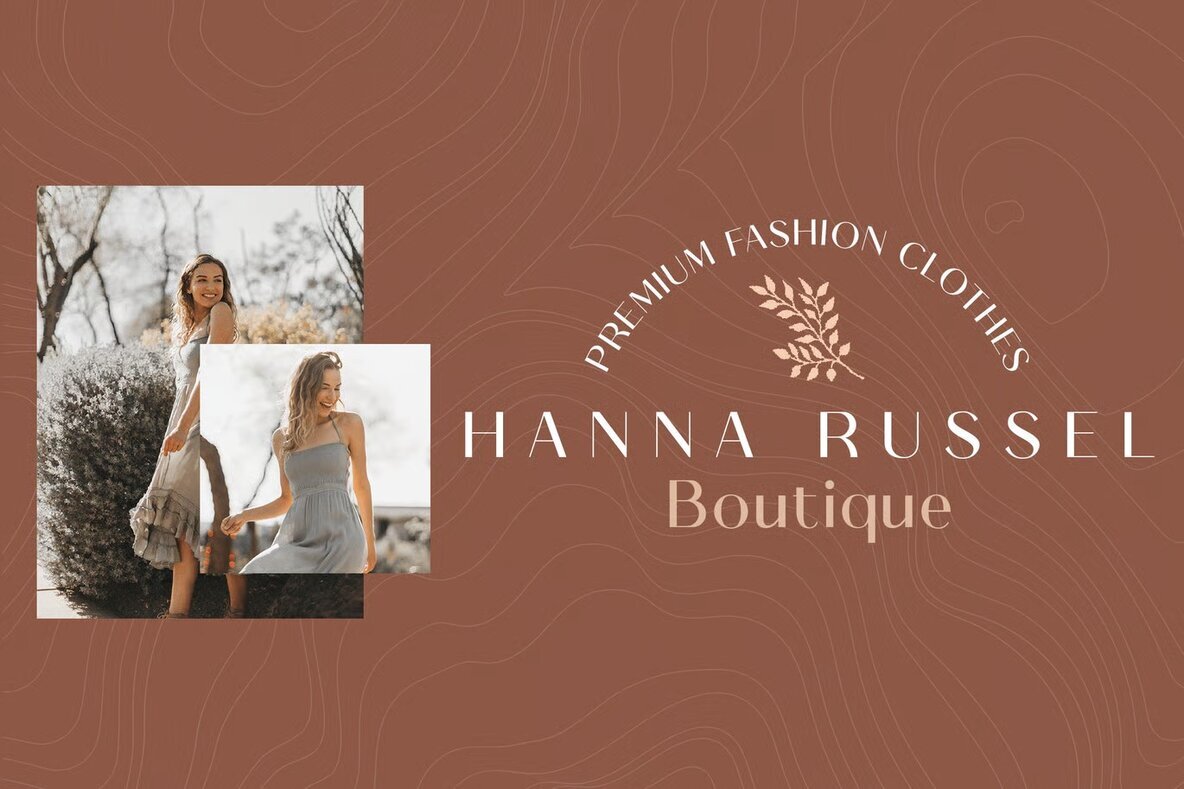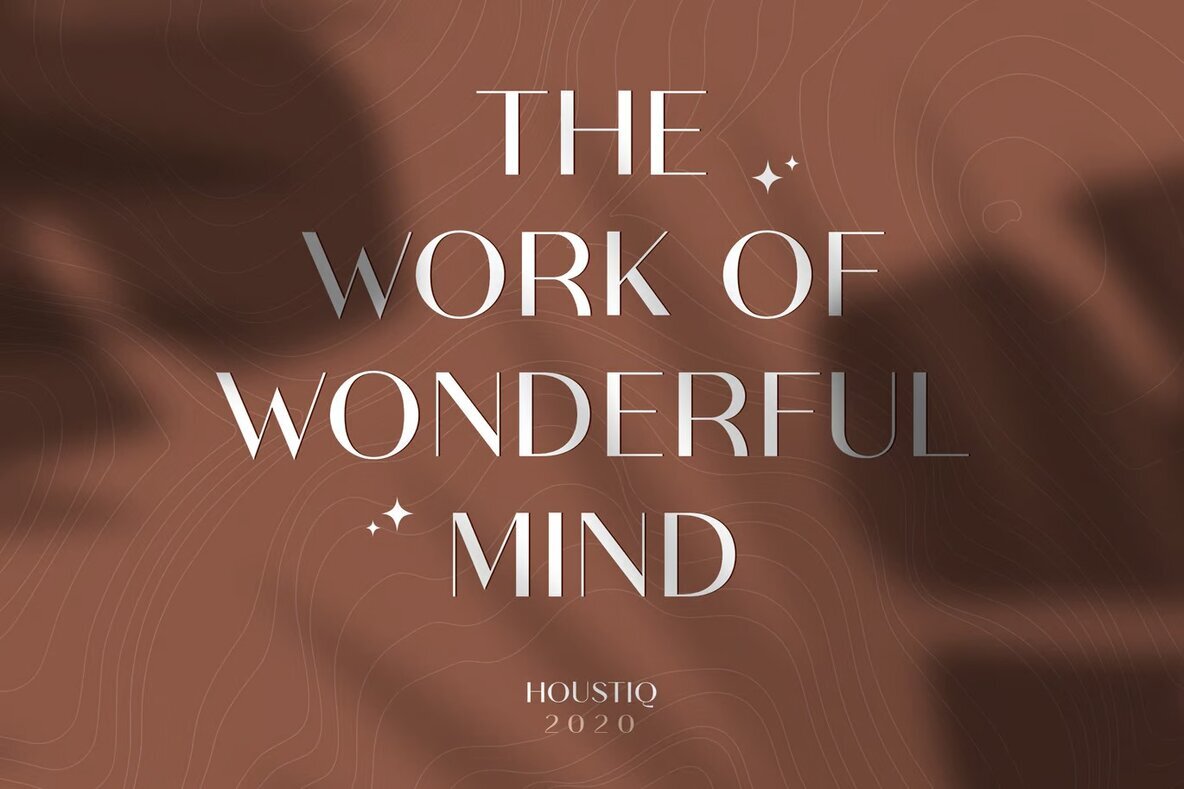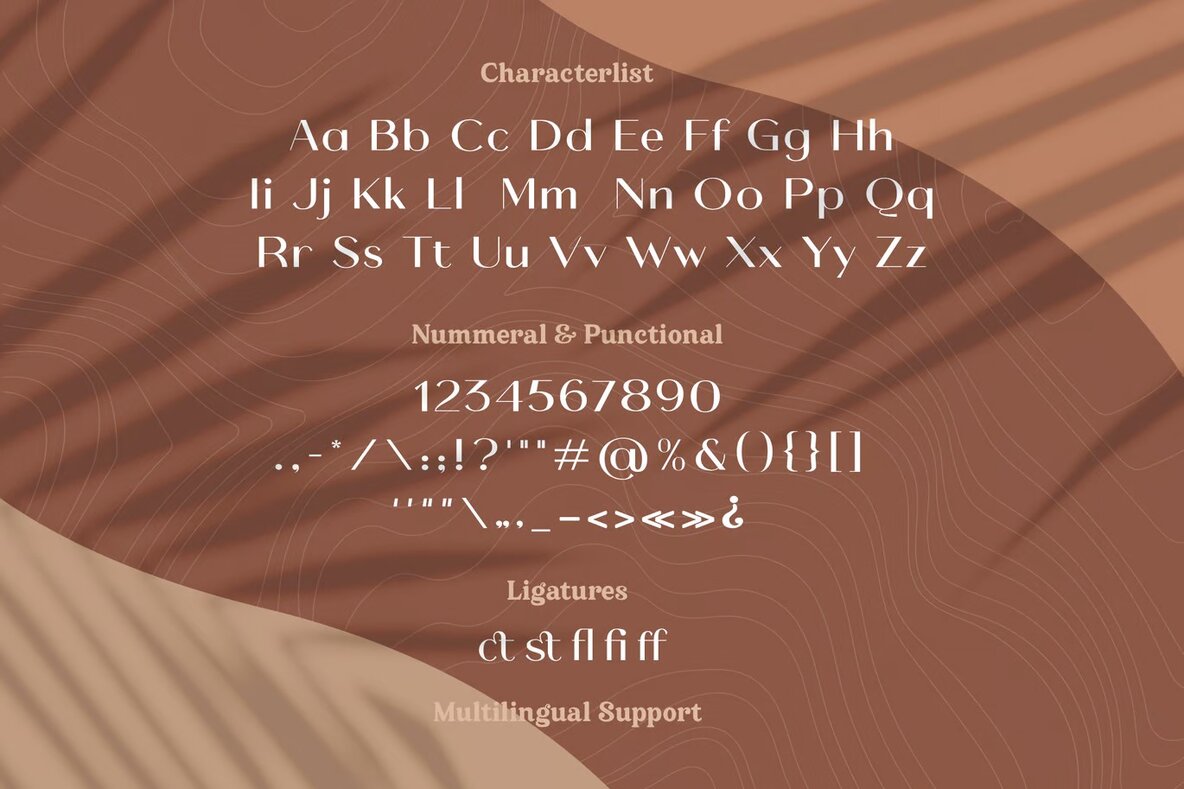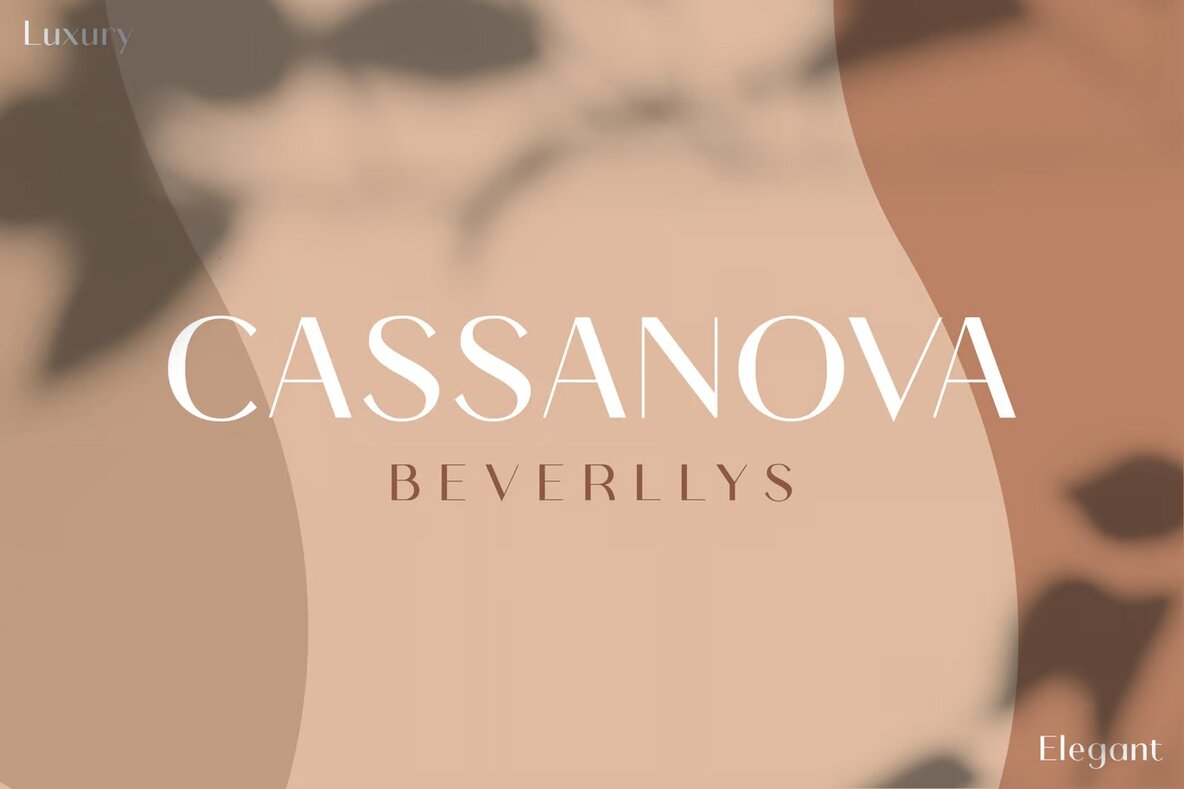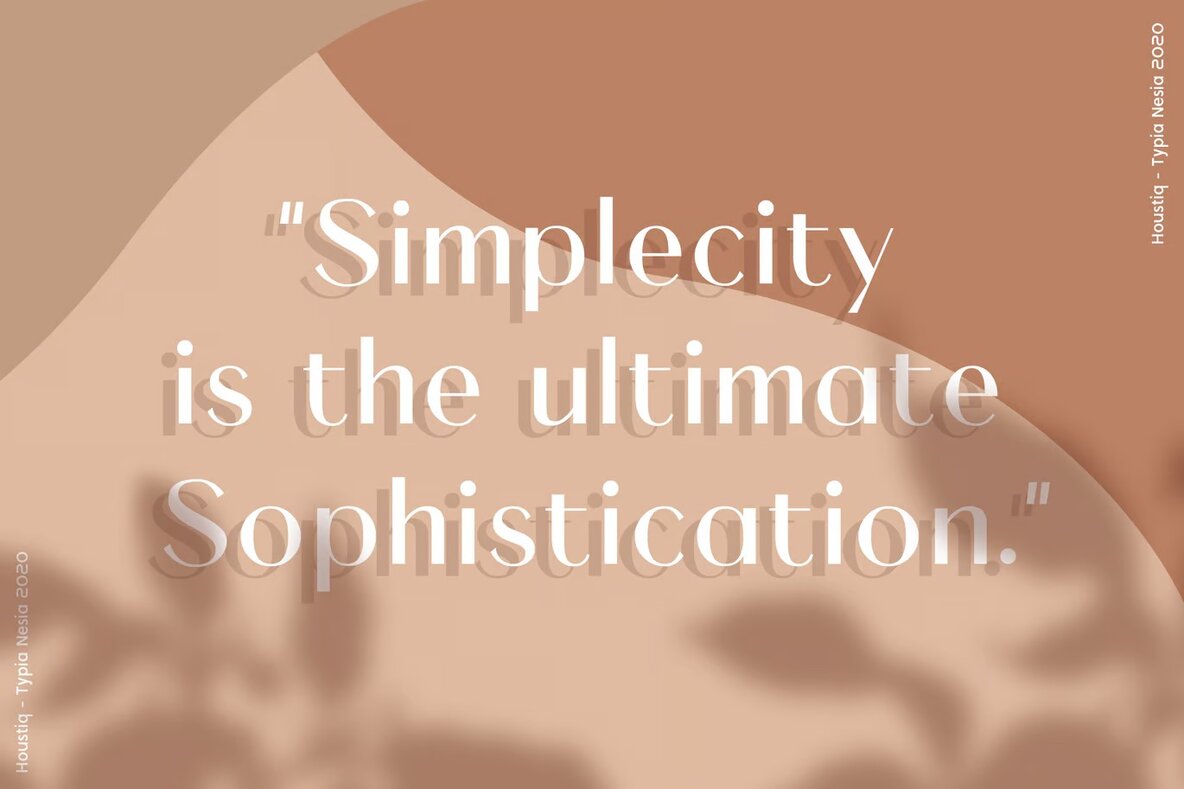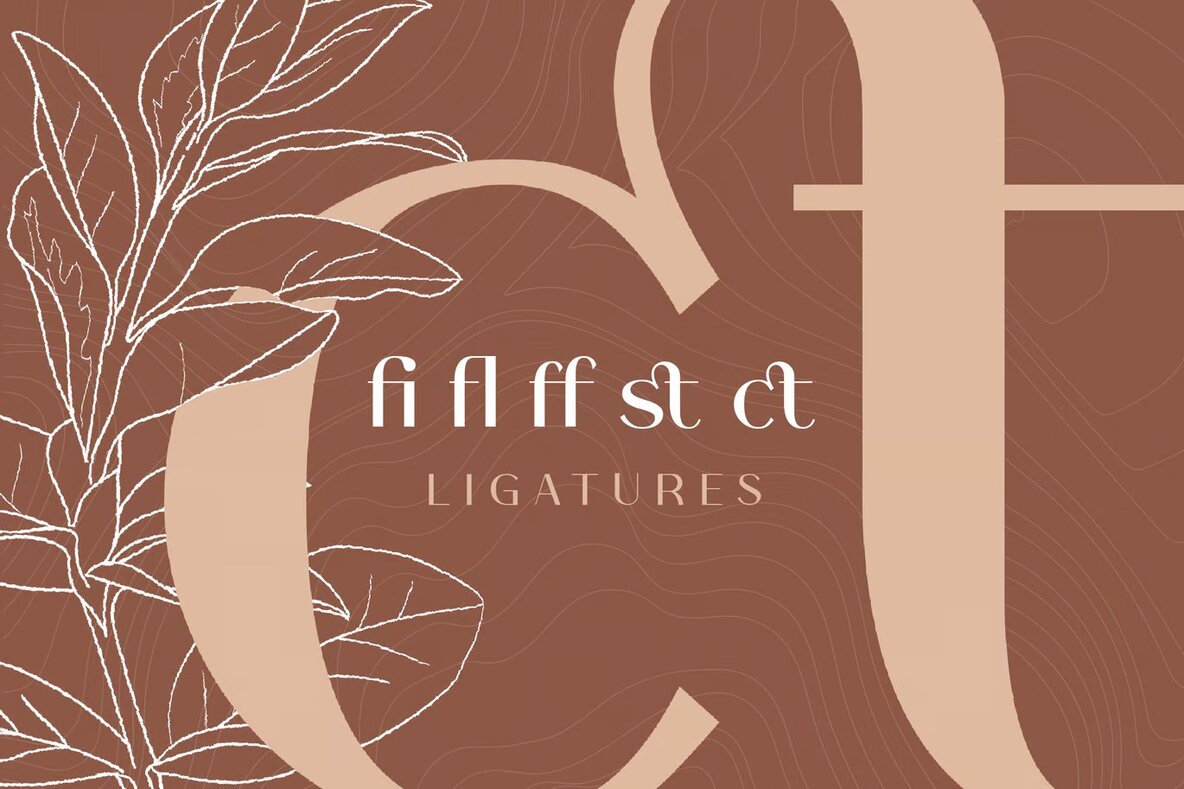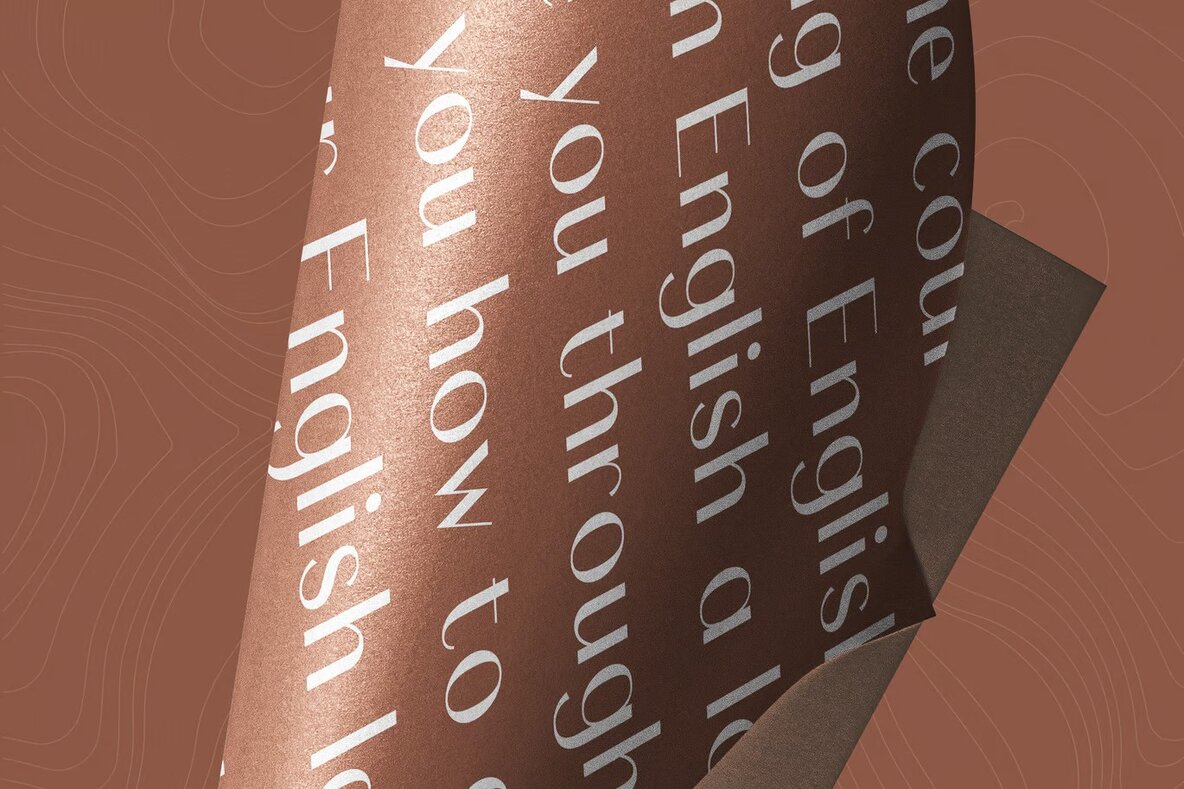
Houstiq Font
Houstiq is an elegant luxury sans serif font designed to bring sophistication to your creative projects. Its sleek and modern design makes it ideal for logo branding, editorial layouts, and stationery design. Perfectly suited for modern advertising, Houstiq can also enhance blog aesthetics and card invitations.
This font is versatile and adaptable, making it suitable for various uses such as art quotes, home decor, and book or cover titles. Whether you're preparing for special events like weddings or birthdays, Houstiq provides a refined and stylish typography solution for any occasion.